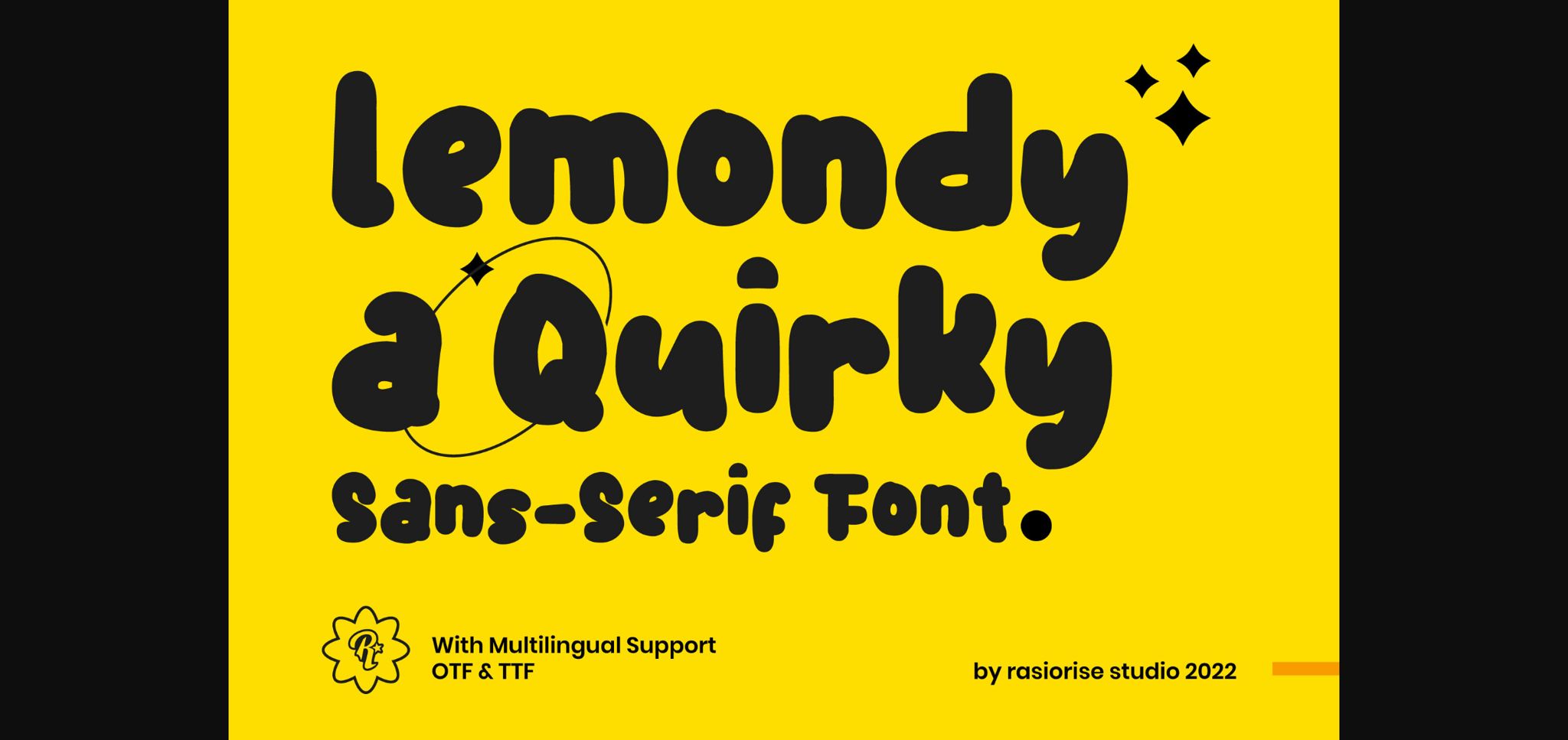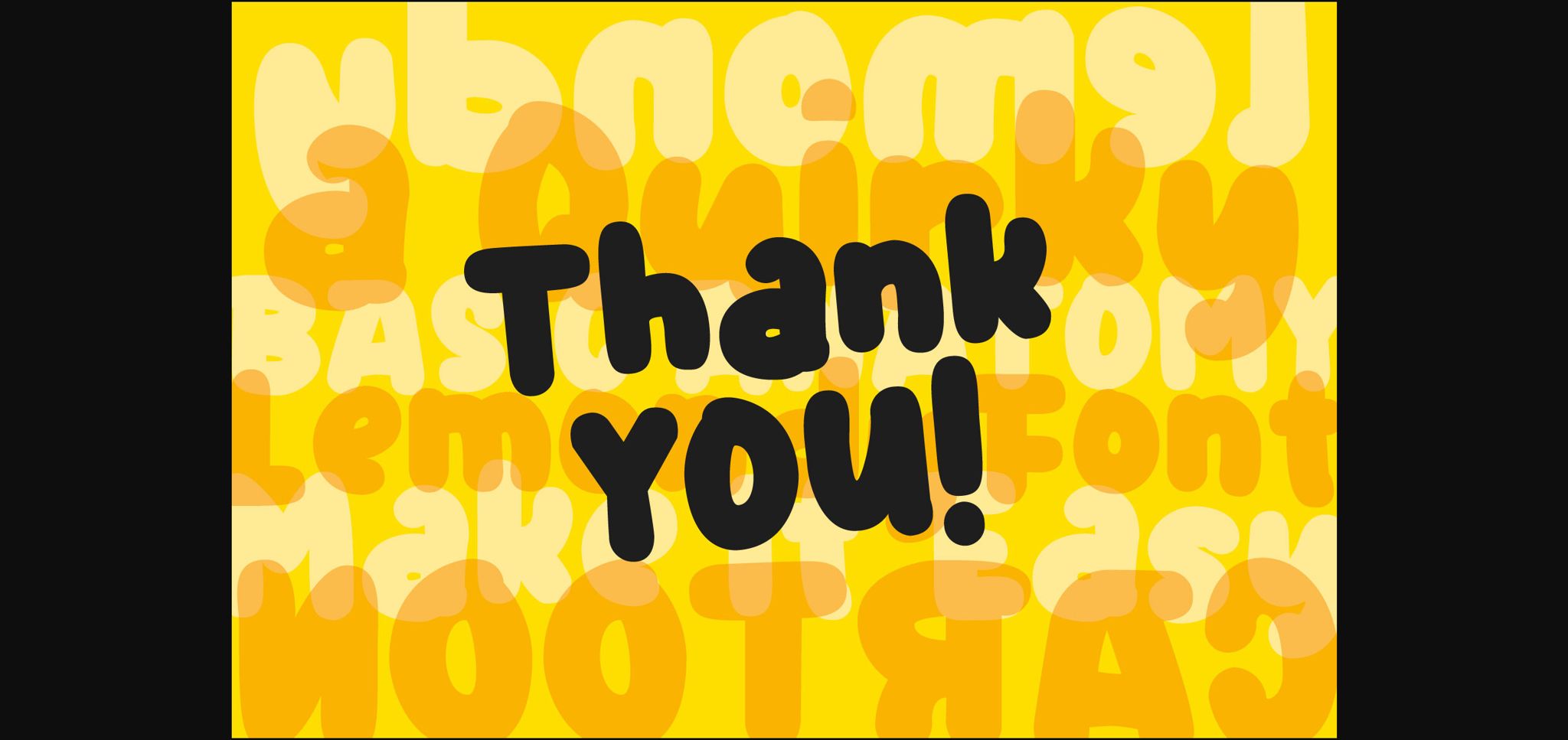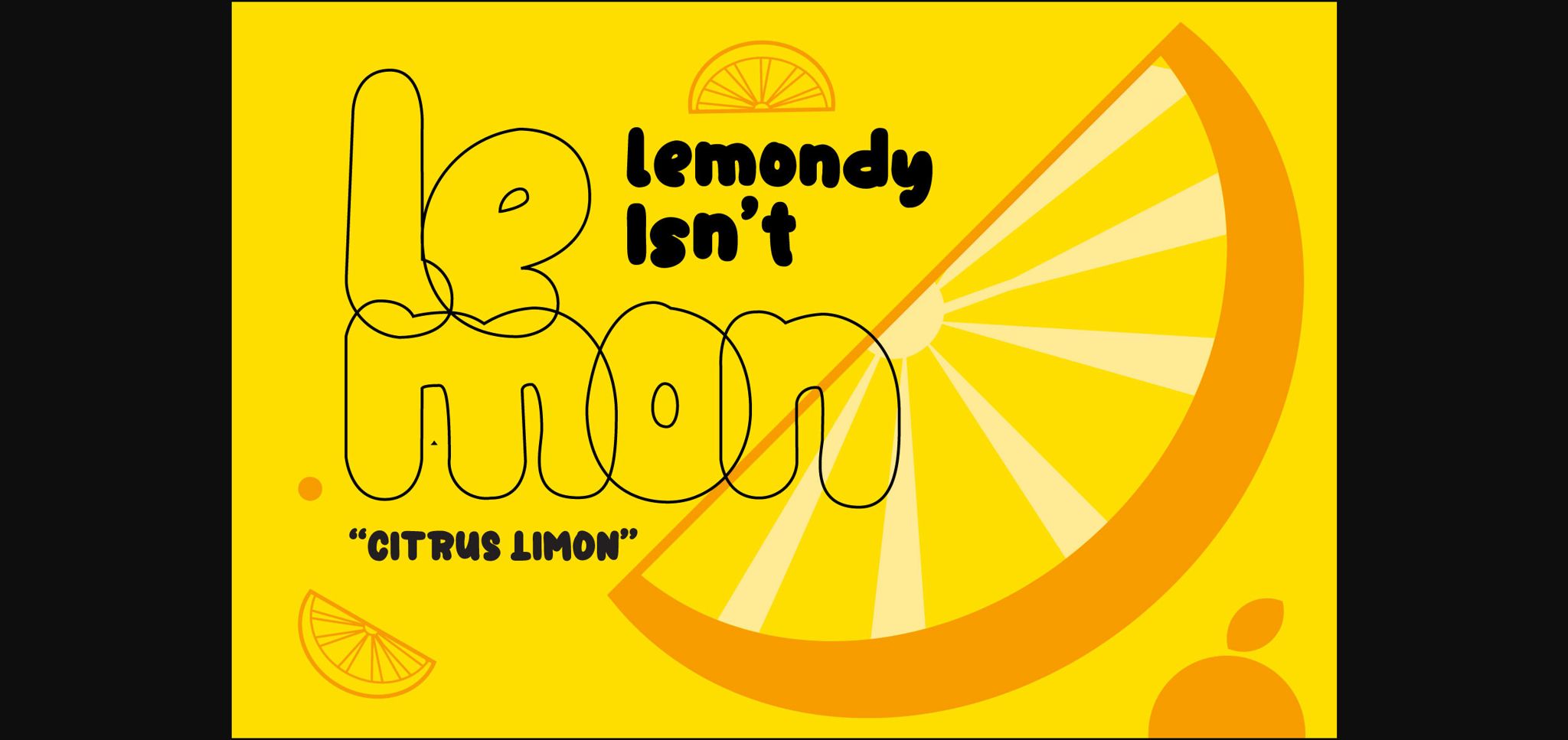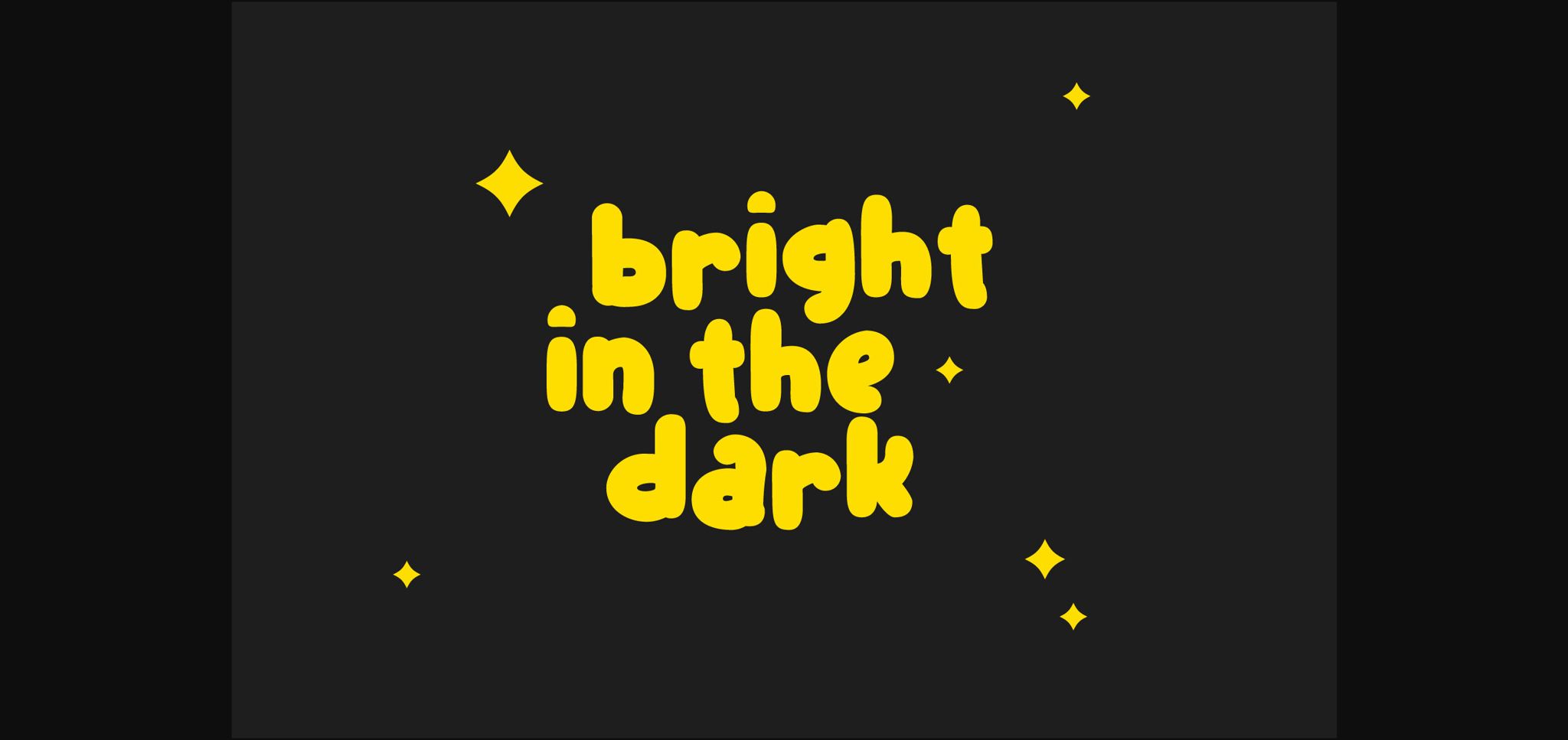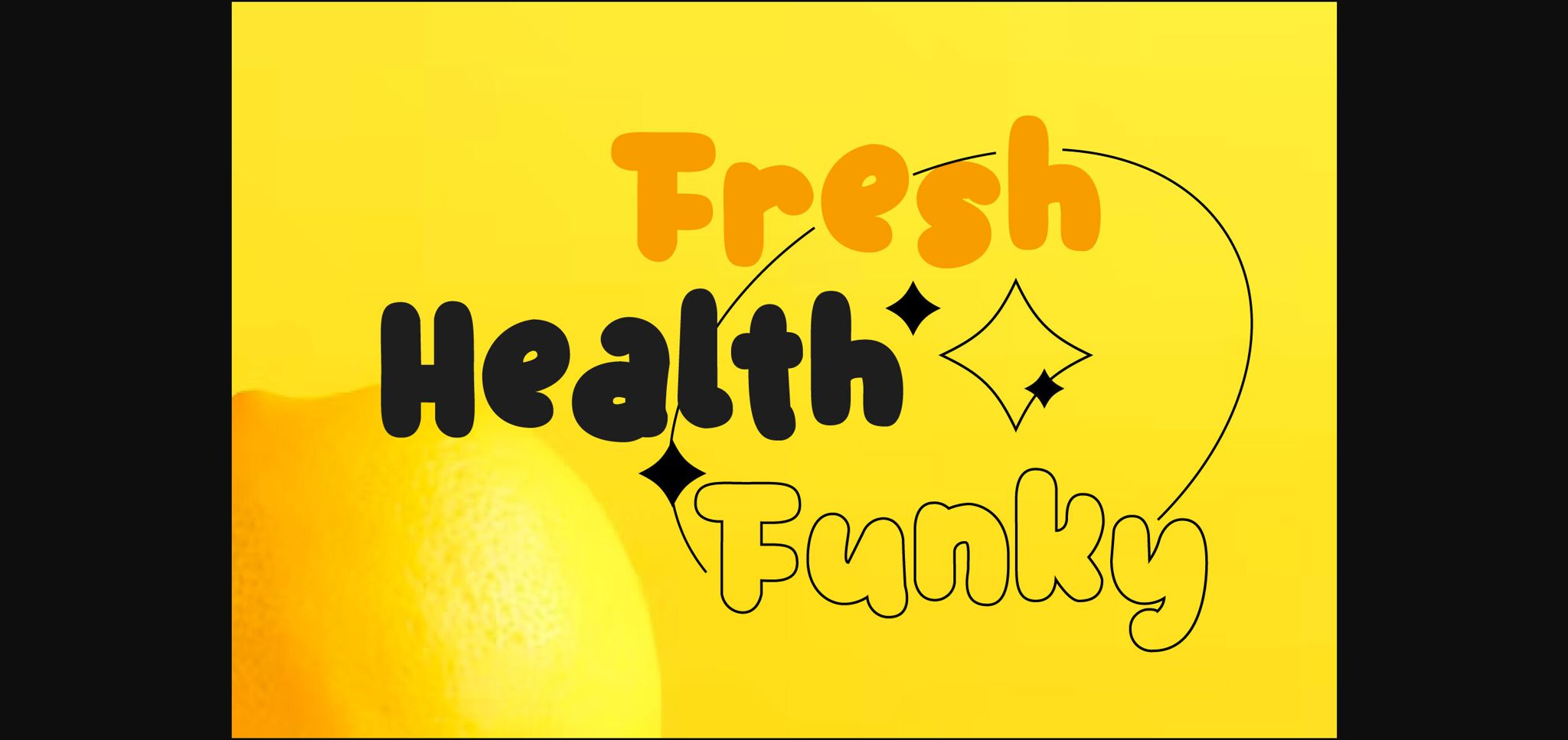
Lemondy Font
About Lemondy Font
Lemondy has been released for those of you who are looking for a Quirky Playful font, The font is inspired by the Playful hand drawing with a few combined to turn them into a bit of a quirky hand-drawn uniquely and perfect for headlines and titles. Very suitable for Book Cover, Children’s Book, Comic Text, Poster, Merchandise, Packaging Label, and much more.